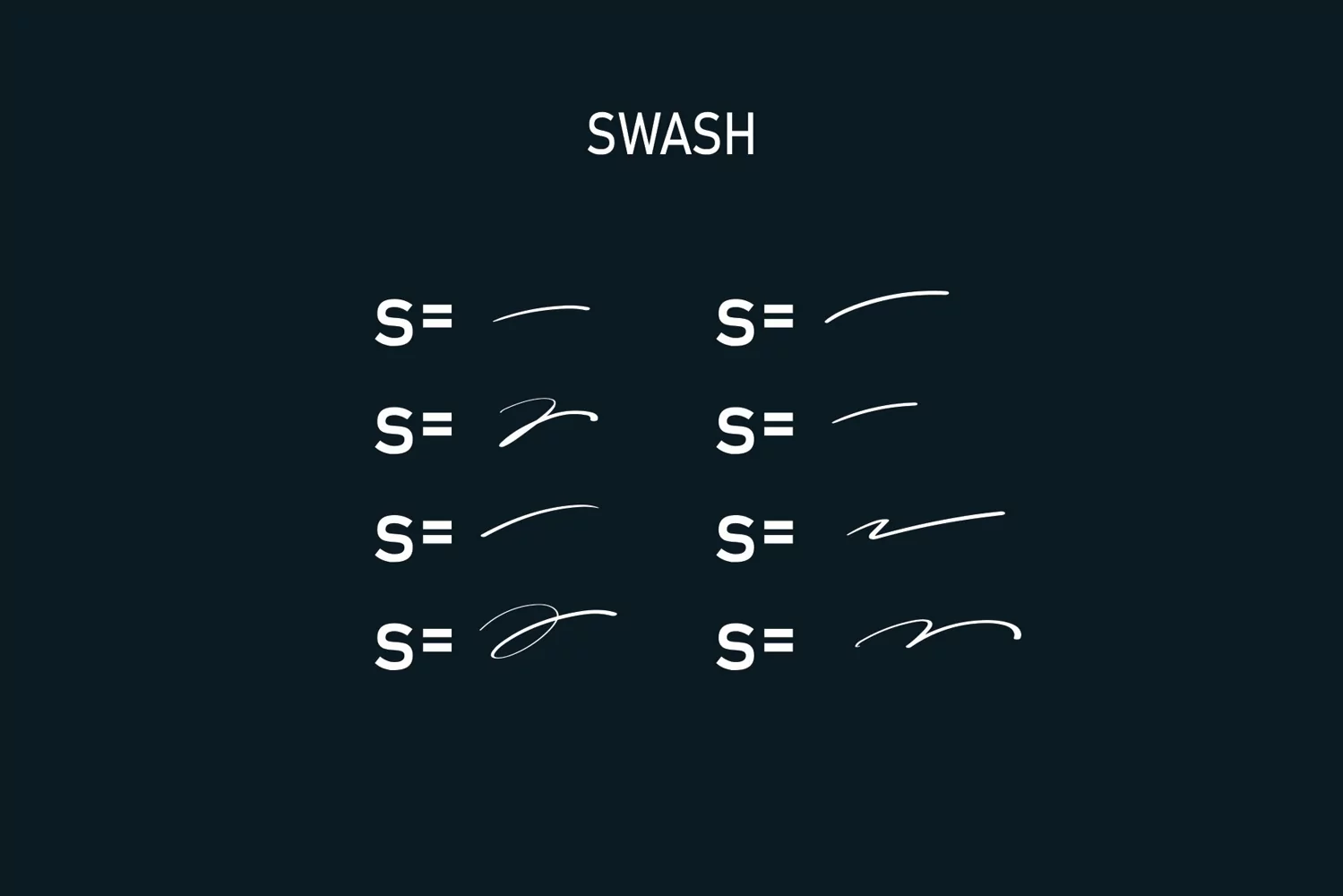
Holiday | Script font
Holiday Font is a popular and professional script font. It is Modern and elegant, this typeface is made of beautiful, creative strokes.